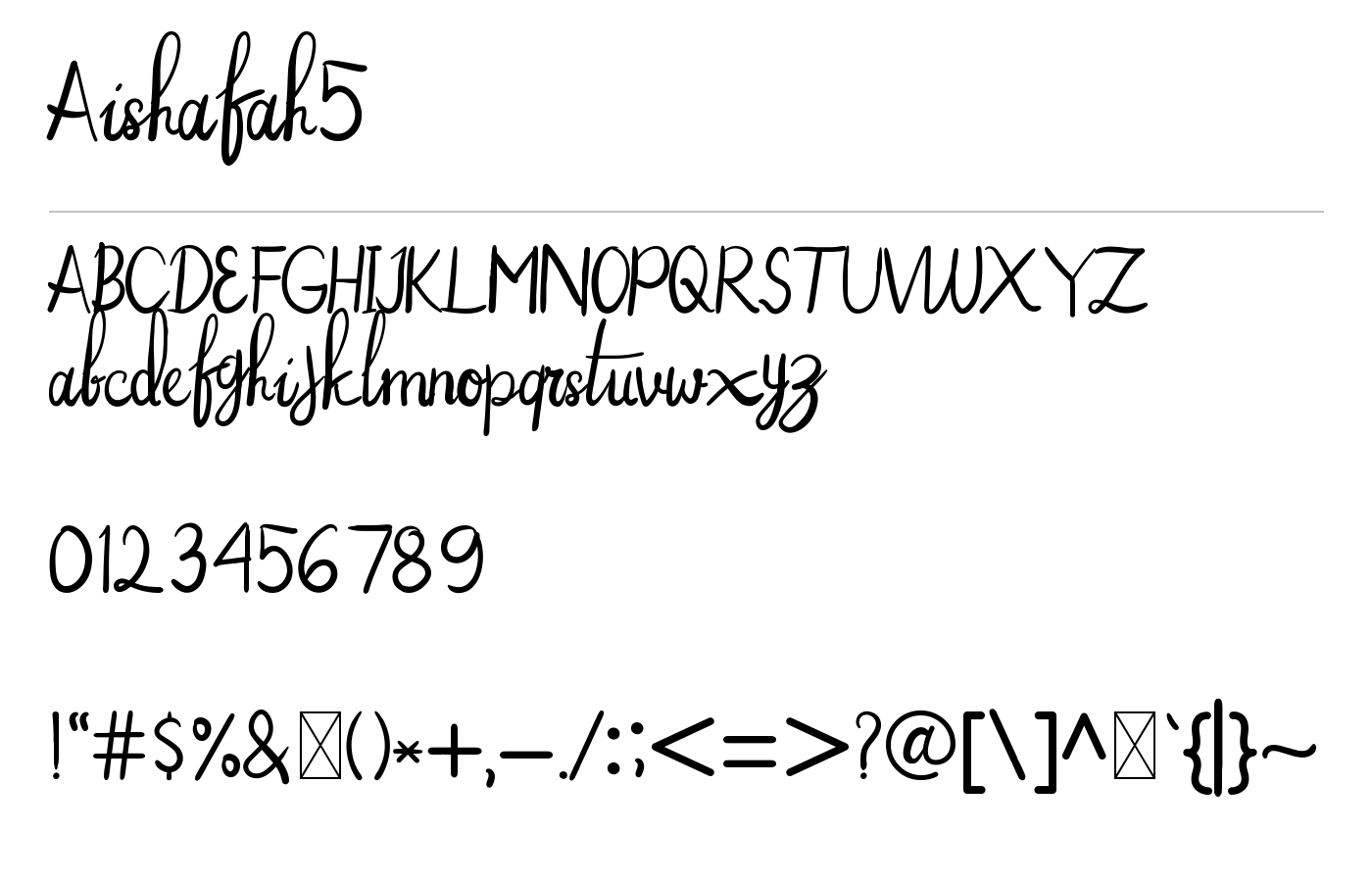
Aishafah5 is a lively and playful handwritten script font that combines a casual, organic feel with legible letterforms. Its slender strokes and tall x-height give it an airy and friendly character, making it perfect for creative projects that seek a personal, approachable touch. This font works well in invitations, branding, and informal designs where warmth and individuality are desired.
| Font family | Aishafah5 Font |
| Designer | d2n |